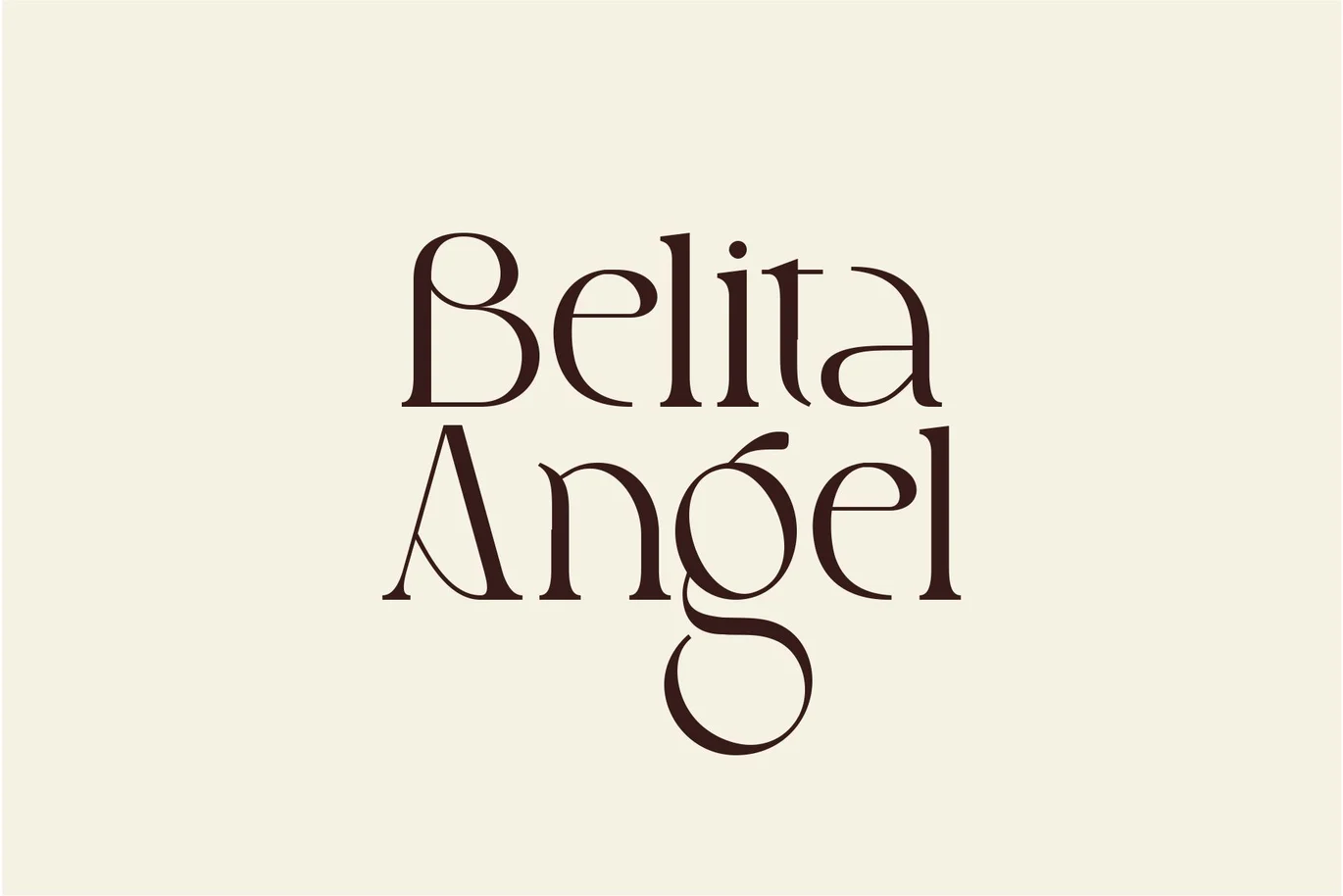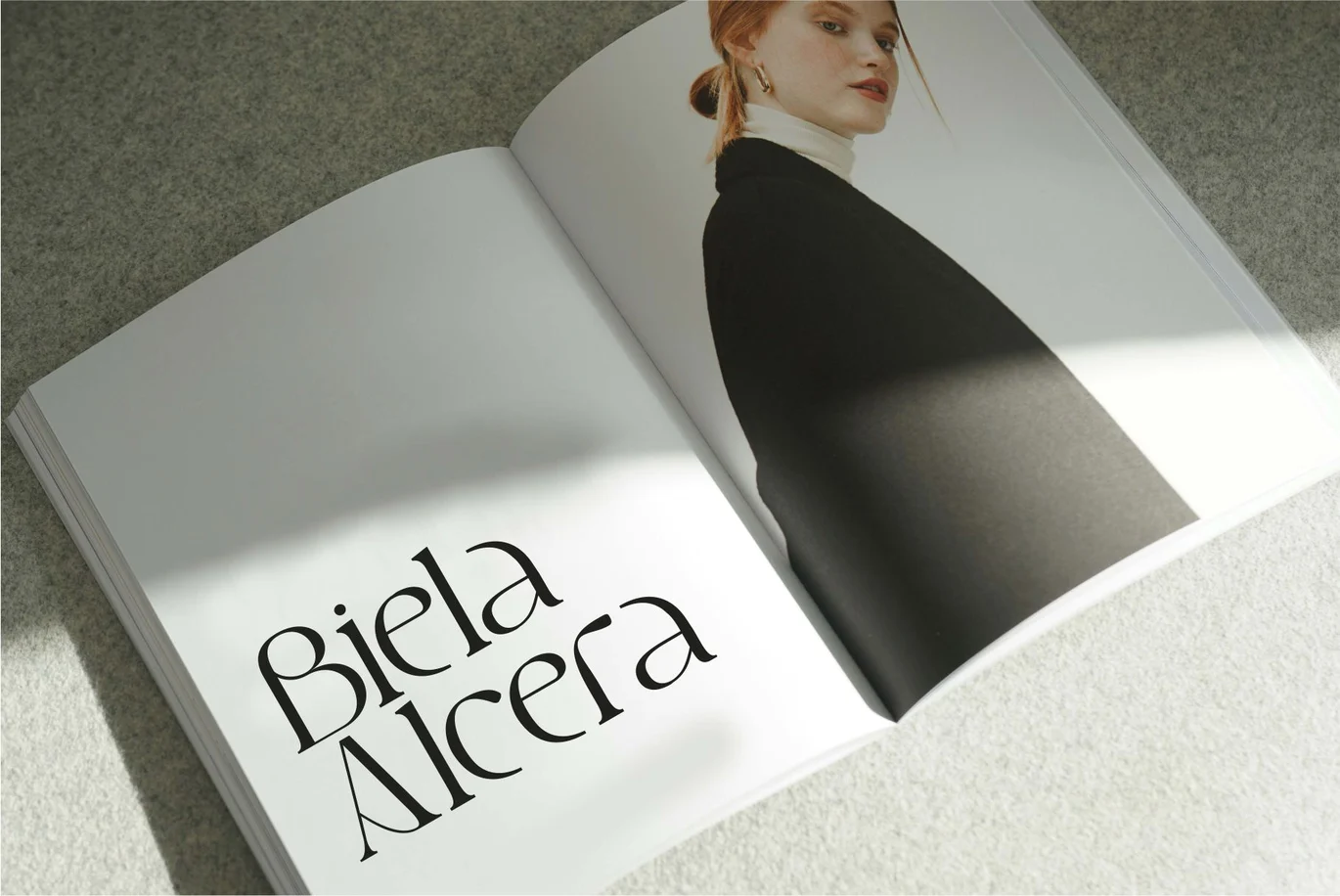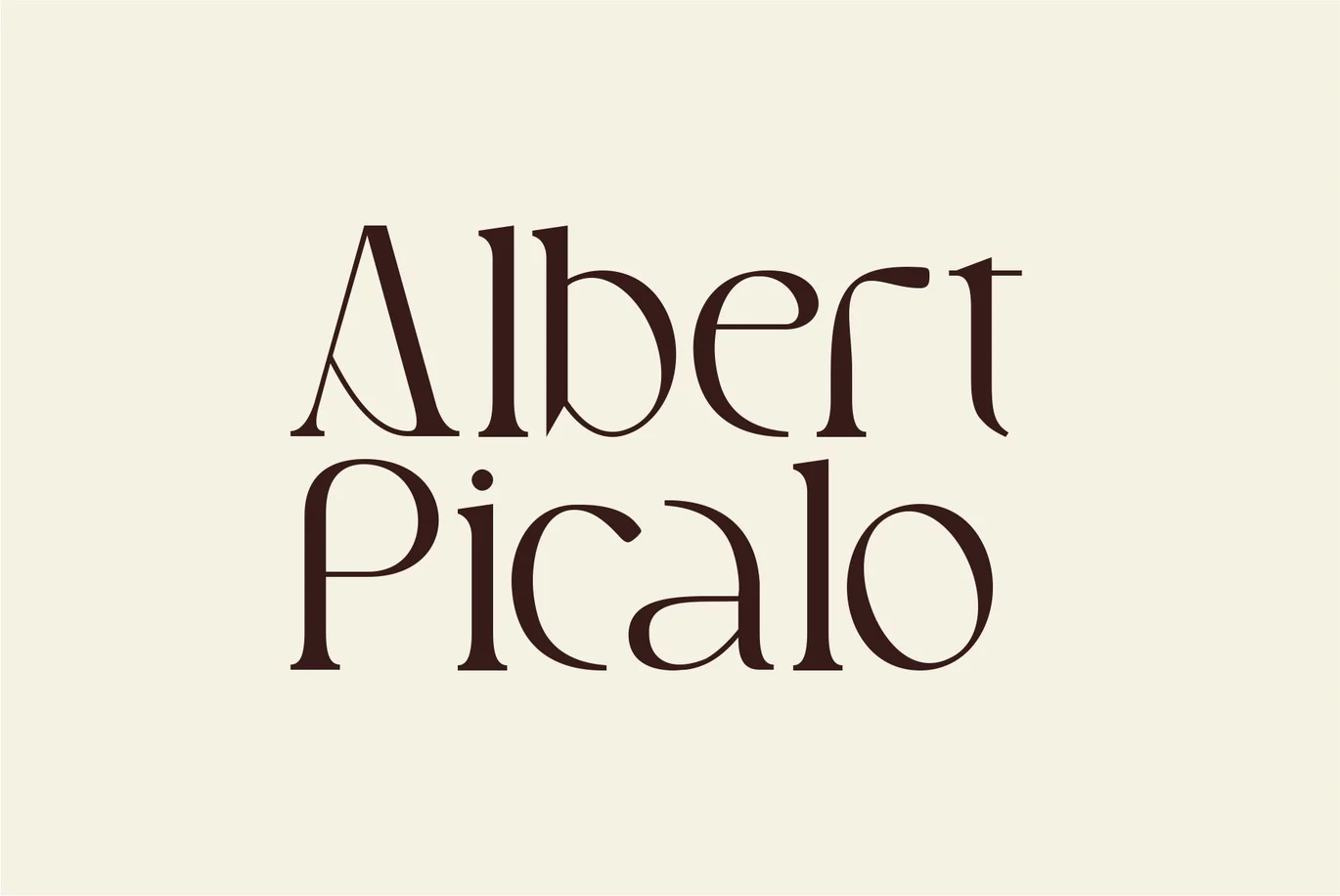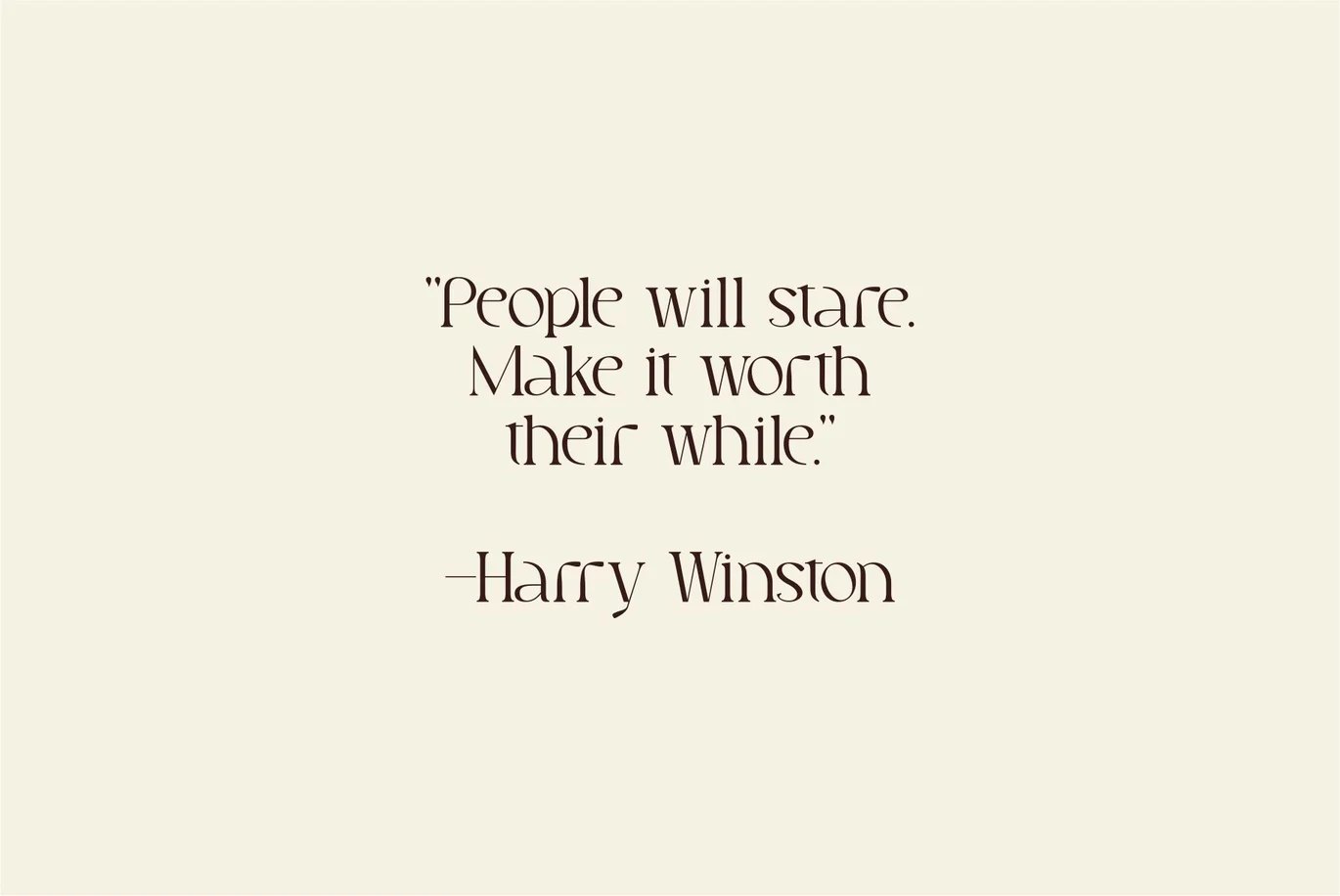
Blore – Elegant Serif Font
The latest stylish modern font has arrived, a font much sought after by both women and men. This is the Blore font. Blore is a unique and elegant serif font. With its elegant, contemporary design and up-to-date style, this font has become a favorite on the market. We maintain the elegant, classy, and stylish look of this font. Blore is a perfect choice for magazines, designs, books, publications, branding, brand names, business cards, social media, classy designs, newspapers, branding, beauty, and other projects. Blore is here to elevate the quality of your designs.